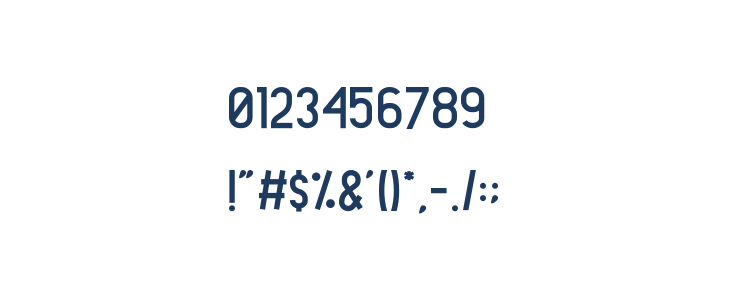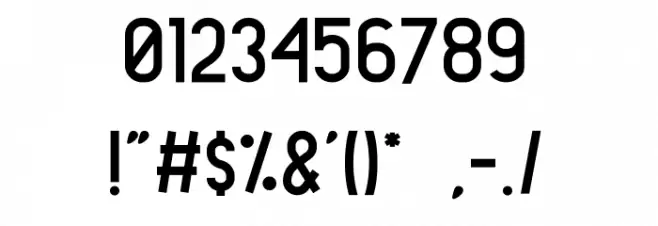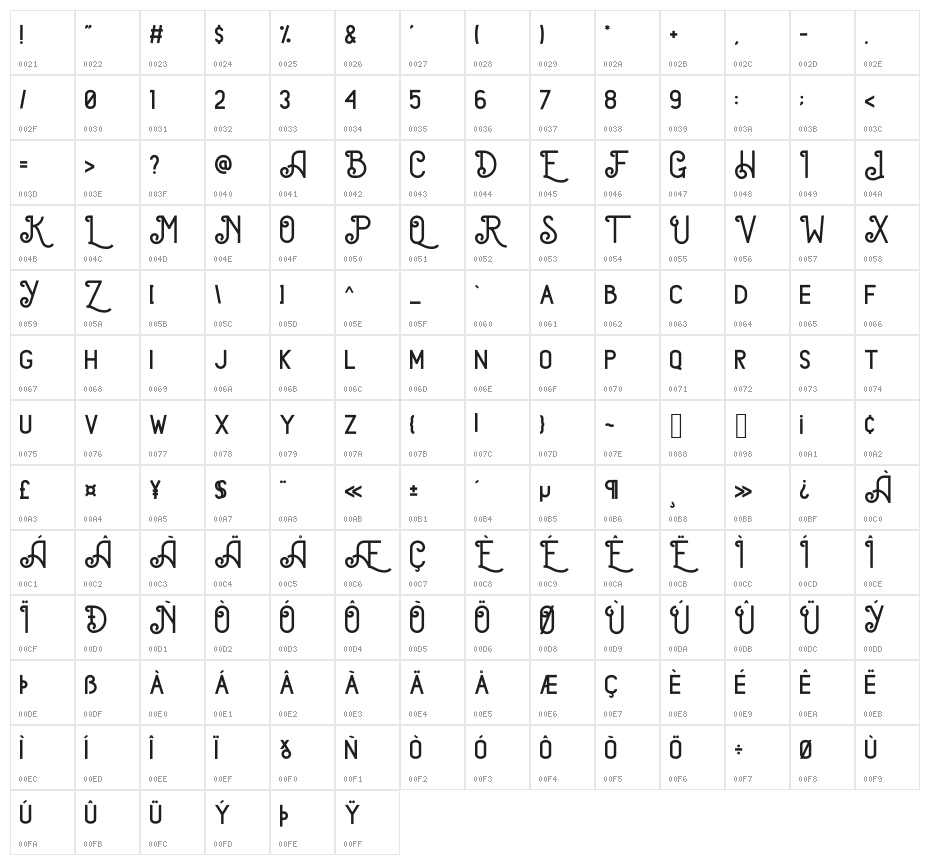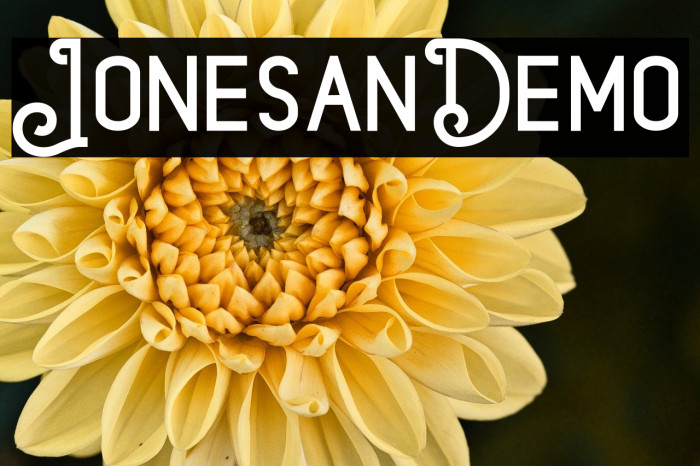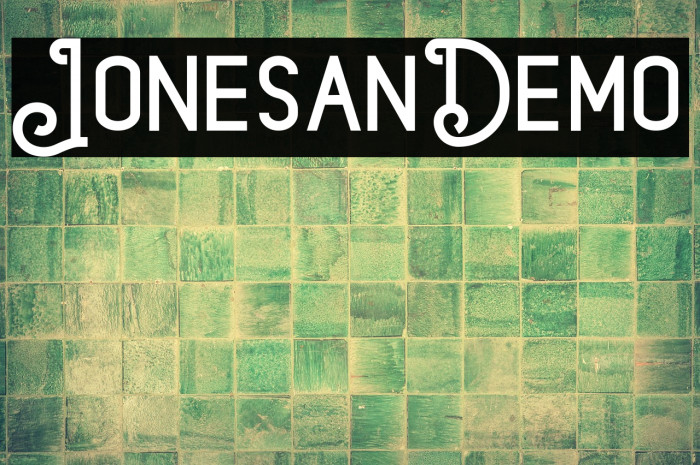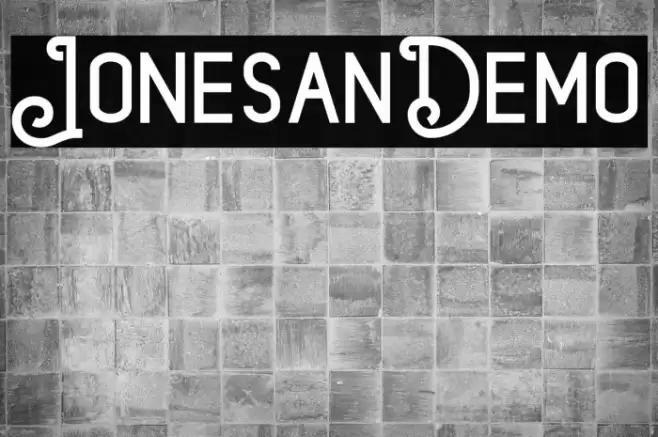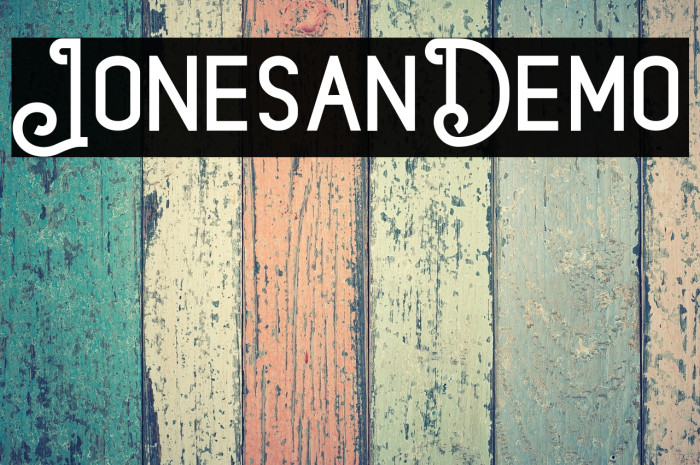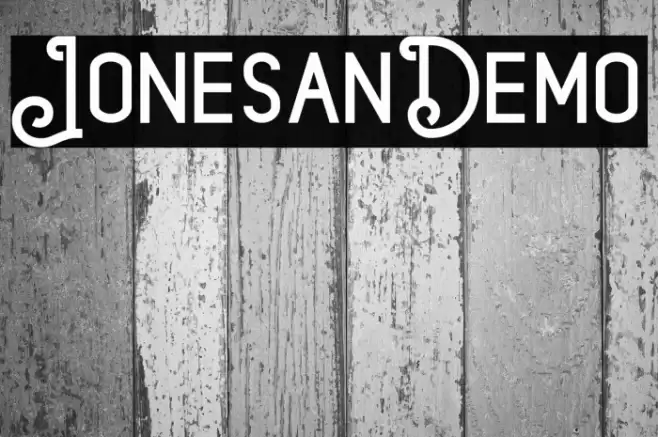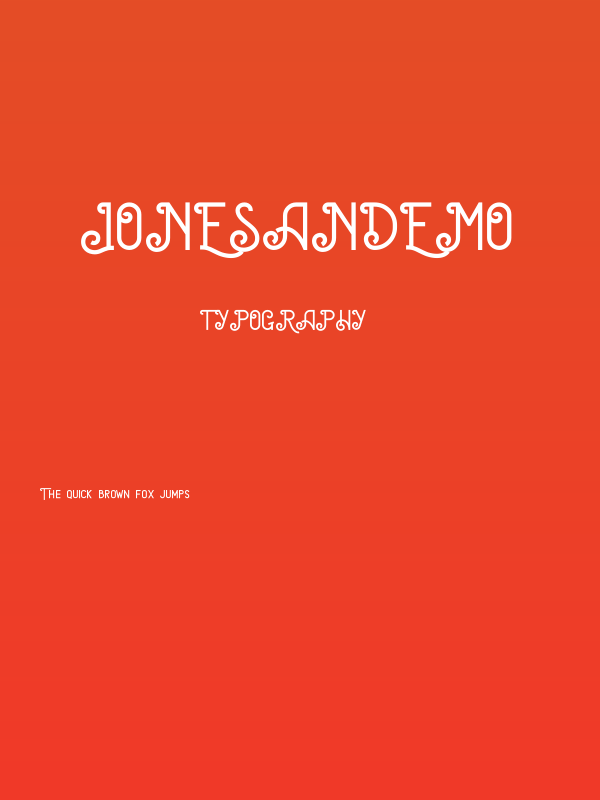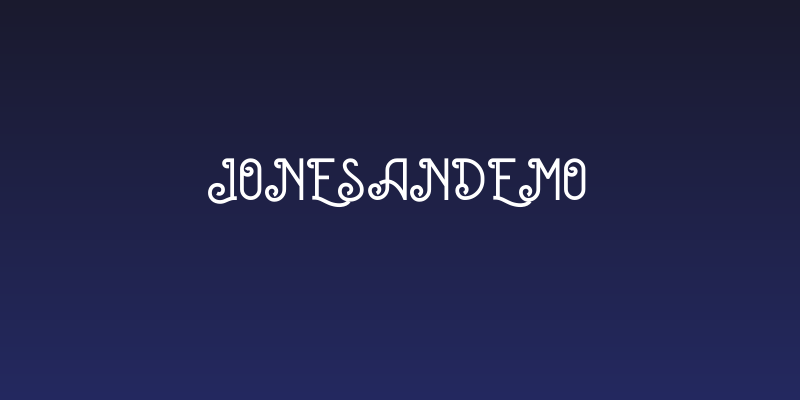
JonesanDemo Font
JonesanDemo Description
This font features a unique blend of decorative and modern styles. The uppercase letters in the first row exhibit a whimsical, curly design, adding a playful and artistic flair. The second set of uppercase letters is more straightforward and bold, providing a strong and clear appearance. The numbers and special characters maintain a consistent style with the second set of uppercase letters, ensuring readability and versatility. The combination of these styles makes the font suitable for a variety of creative projects, offering both decorative and practical elements.
| Proposed Projects | Ideal for branding, invitations, posters, and creative design projects requiring a mix of elegance and clarity. |